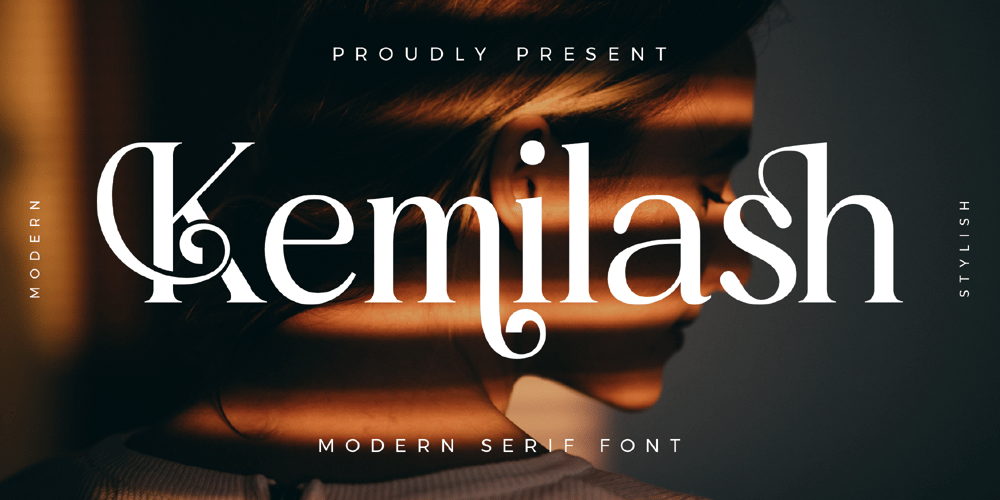
Kemilash Font Family was designed by Heru Utama Putra and published by Letterena Studios. Kemilash contains 2 styles and family package options. Kemilash is a modern and classic serif typeface that has its own unique style and modern look. This typeface is perfect for an elegant & luxurious logo, book or movie title design, fashion brand, magazine, clothes, lettering, quotes, and so much more.